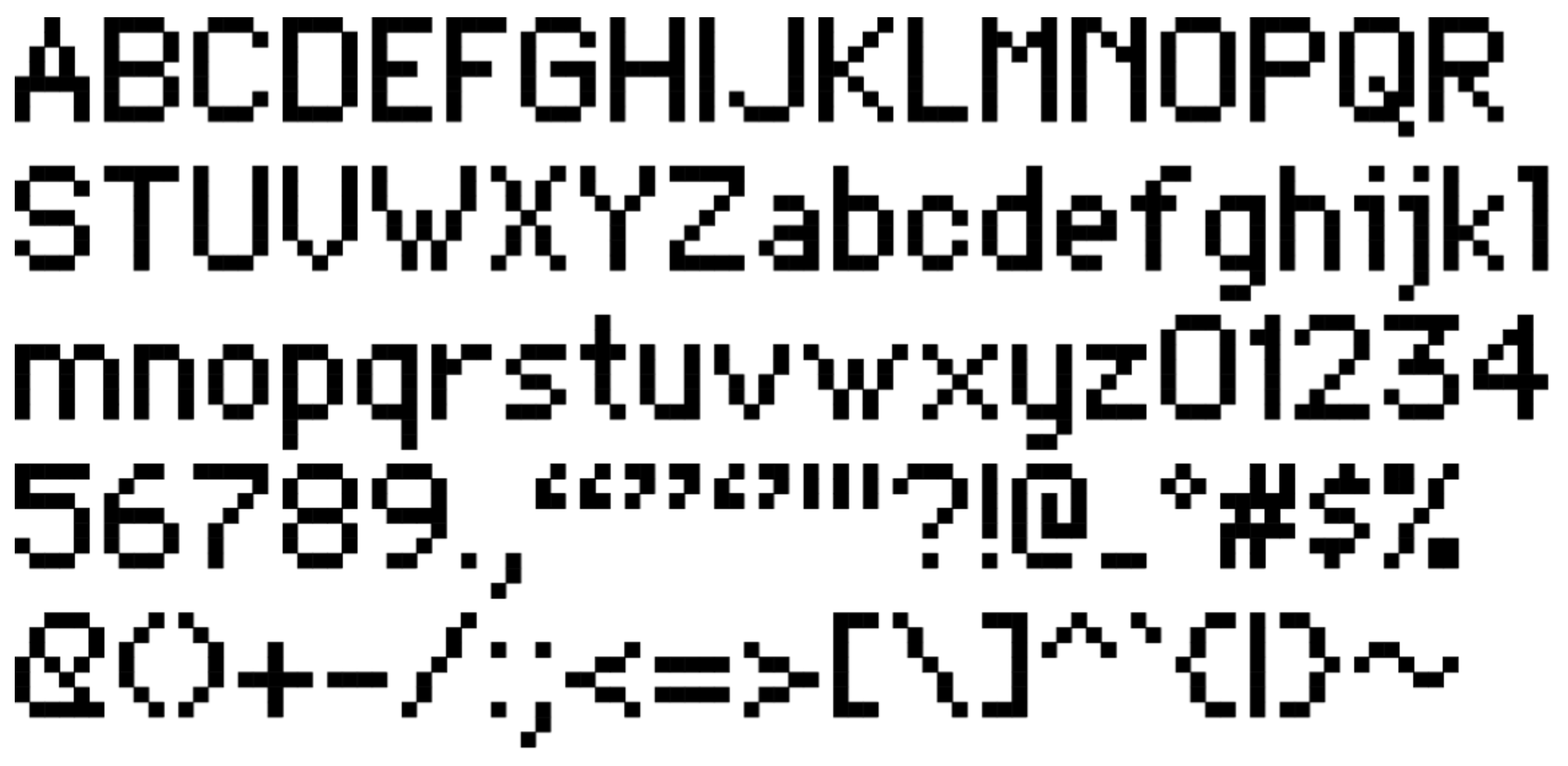
Macintosh System 1 - Pixel Art & Gameboy Font
The Macintosh "System 1" is the first major release of the classic Mac OS operating system, released on January 24, 1984, along with the Macintosh 128K, the first in the Macintosh family of personal computers.
System 1 had two major system fonts, created by Apple designer Susan Kare: Sysfont, later known as Chicago, and another font for smaller text. I couldn't find the name nor the font file for the latter, so I made it myself and made it free for download. Conversely, here is the other one: